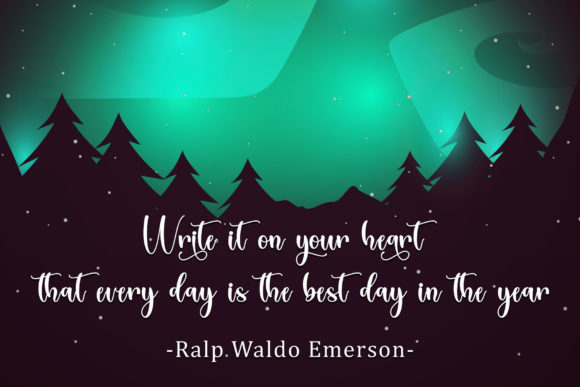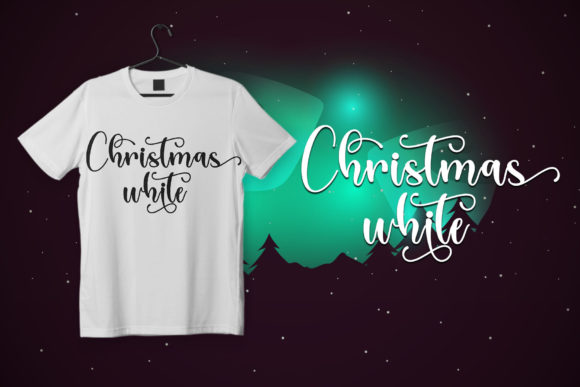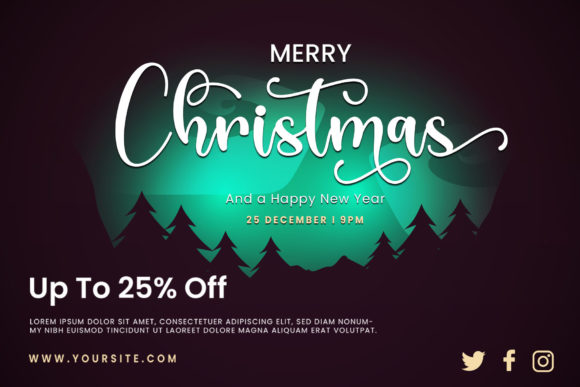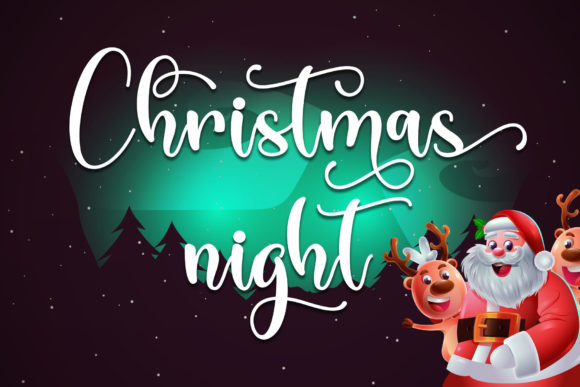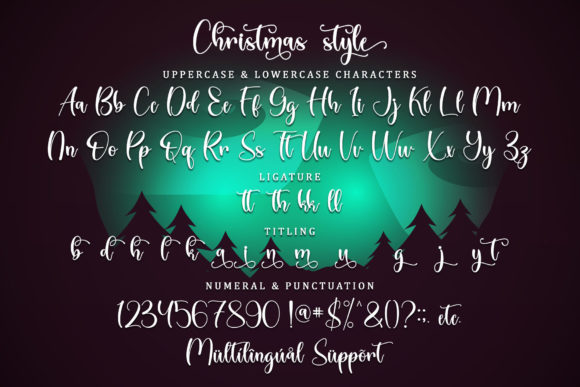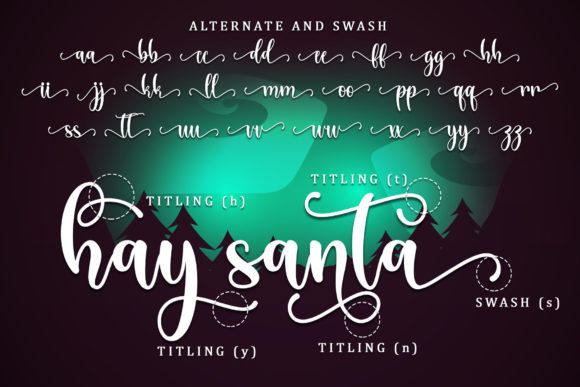
Introduction to Christmas Style Font
Christmas Style is modern calligraphy that looks beautiful on Christmas cards, invitations, t-shirt designs, labels, logos, magazines, children’s books, blog graphics, and more.
Key Features of Christmas Style Font
Why Choose Christmas Style Font?
Christmas Style Font offers exceptional quality and versatility, making it a valuable addition to your design toolkit. Whether you’re creating for personal projects or commercial use, Christmas Style Font delivers professional results.